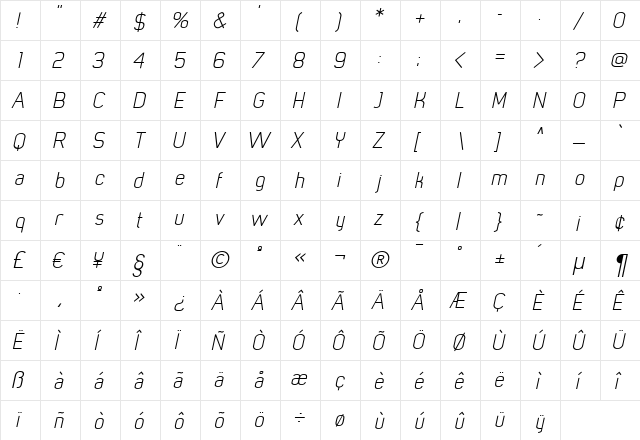
Mister Giacco Light Italic
Design Context for Mister Giacco Light Typeface
Mister Giacco Light is a composed and adaptable typeface that performs quietly and consistently across a wide range of design contexts. Its italic angle brings a sense of urgency and motion to the letterforms. Its slender proportions lend an understated elegance to any composition.
Pro Tip: Use Mister Giacco Light for emphasis, pull quotes, and subheadings where its slanted energy can add rhythm to the layout.